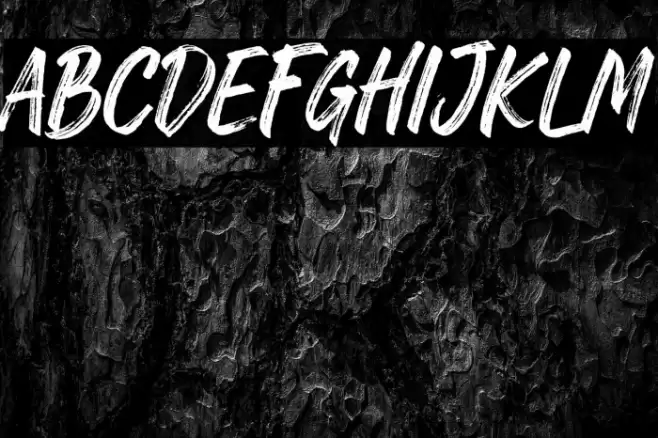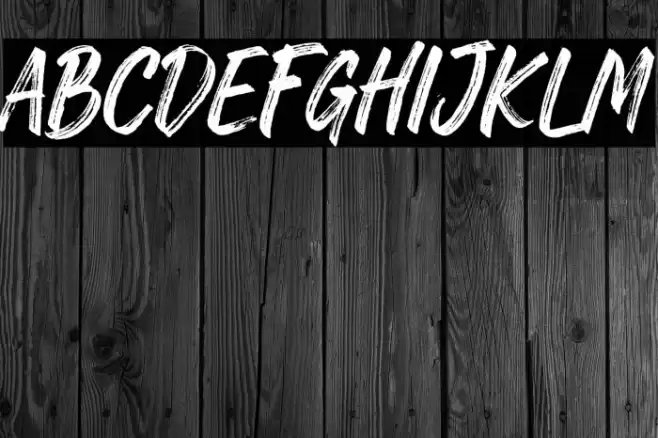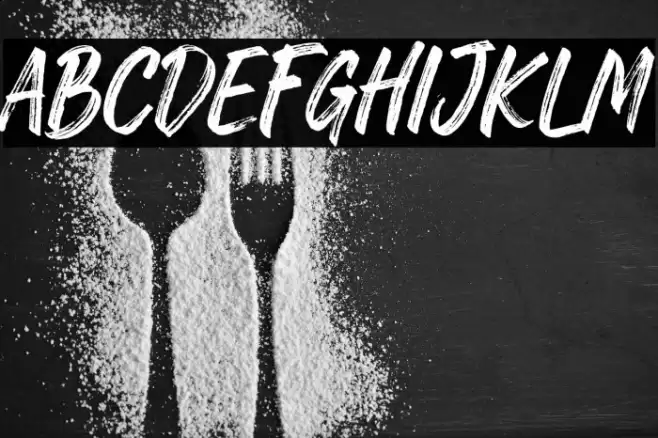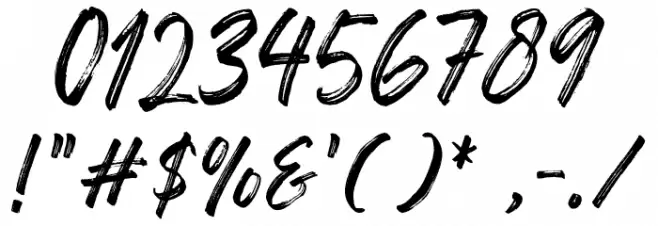
RawkBrush Font
RawkBrush Description
This font exudes a bold and energetic style, reminiscent of brush strokes with a raw, hand-drawn aesthetic. The letters are characterized by their dynamic and irregular forms, giving a sense of movement and spontaneity. The uppercase and lowercase letters maintain a consistent style, with thick strokes and slight variations in angle and curvature, adding to the font's lively appearance. The numbers and special characters follow the same expressive design, ensuring a cohesive look across all elements. This font is ideal for projects that require a touch of creativity and boldness, making it perfect for eye-catching designs.
A bold, brush-style font with dynamic, hand-drawn characteristics from Uncategorized fonts.
- Proposed Projects: Ideal for posters, album covers, branding, and any creative projects needing a bold statement.